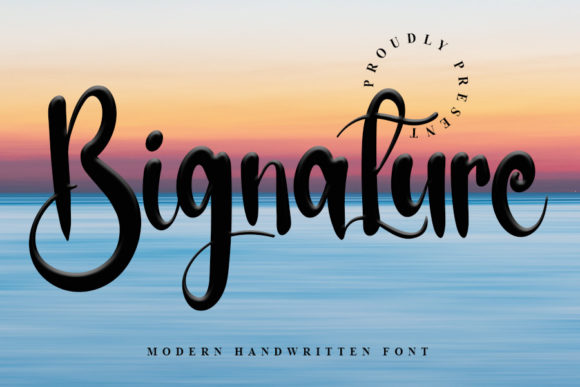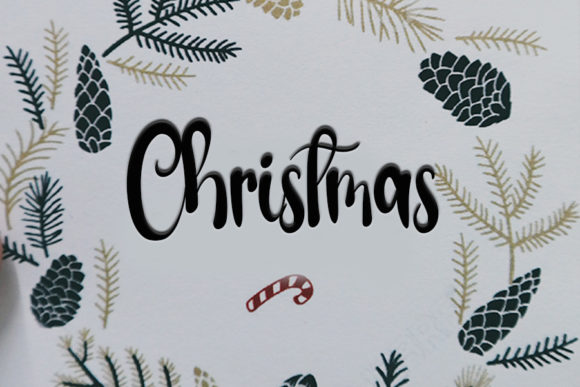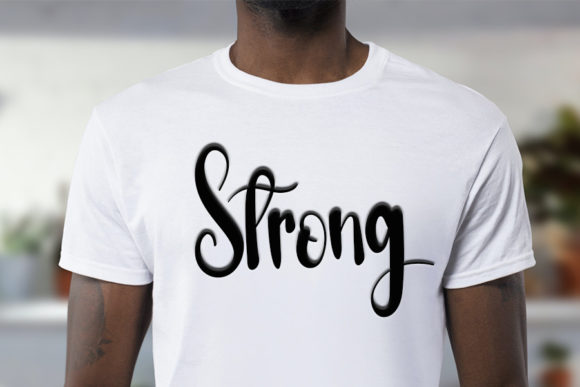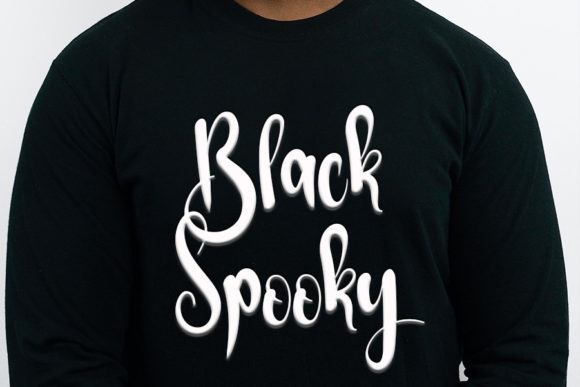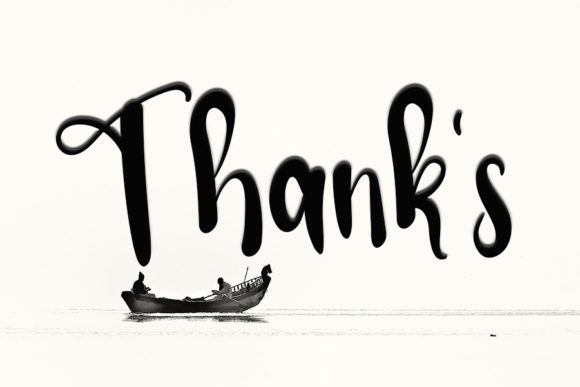
Bignature Font
About Bignature Font
Bignature is a delicate and well-rounded handwritten font, perfect for crafty projects that need authentic typography! Use it for wedding invitations, birthday cards, personal branding, elegant logos, or more.